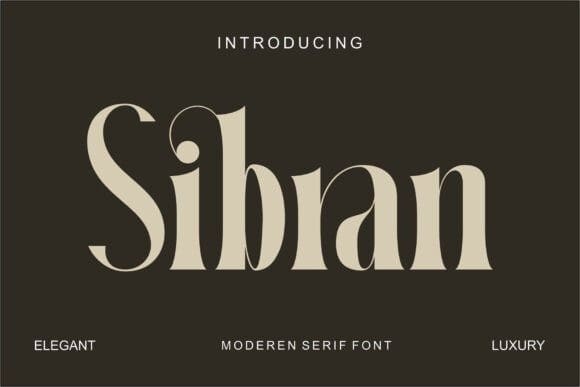
Sibran Font
Sibran Font – Elegant and classy display font with its matching italic and tons of ligatures. This versatile font is best for branding, webdesign project, logo, fashion related concept, and much more.